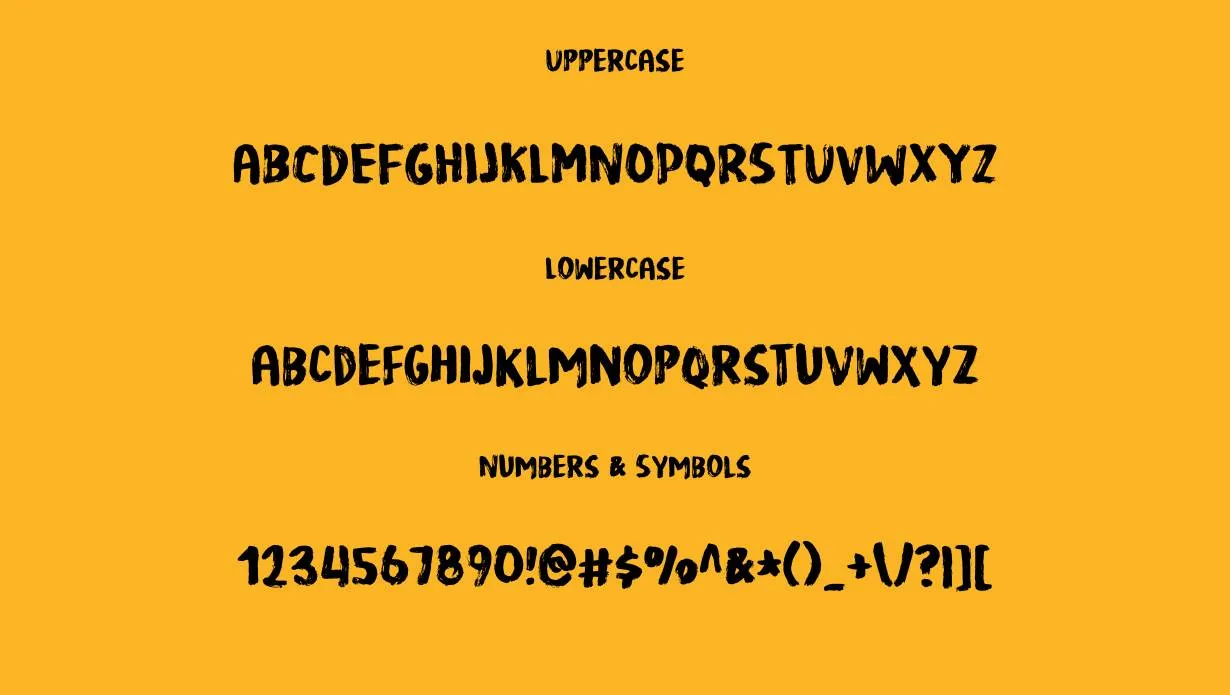
The Reliable font embodies a clean and professional appearance, often used in modern or business-related designs. It’s favored for its versatility in corporate branding, product labels, or digital media.
The font generally includes a substantial set of characters and symbols, catering to a range of typographic requirements. Achieve the desired audience response by pairing the BlowBrush Font with this font family to maximize the effectiveness of your communication.
| Name | Reliable Font |
| Designer | Unknown |
| Style | Brush |